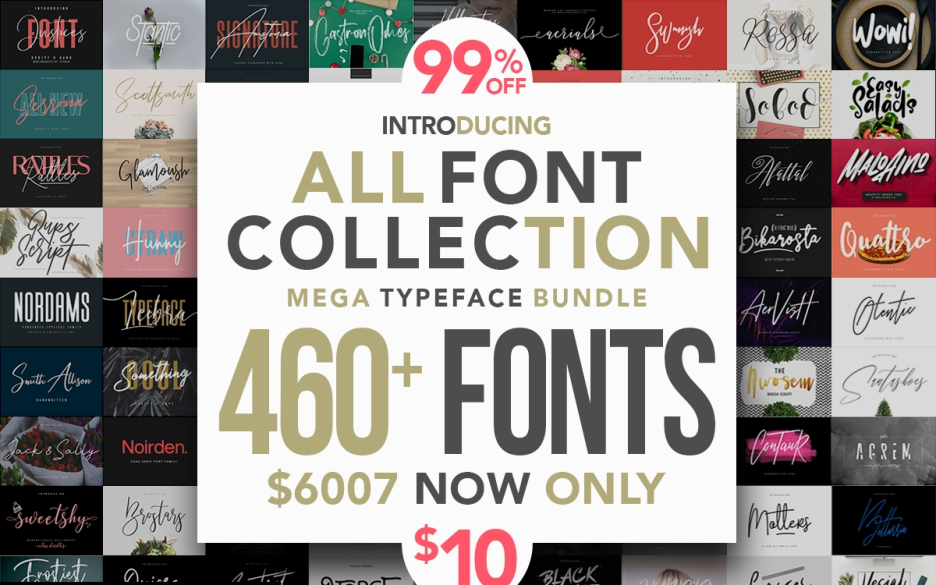
Introducing the All Fonts Collection – Mega Typeface Bundle, a comprehensive selection of high-quality fonts designed to elevate your design projects. This bundle features a diverse range of font styles, including serif, sans-serif, script, and display fonts, each crafted with precision to meet your creative needs.
- Variety of font styles: serif, sans-serif, script, and display
- Multiple weights and styles for versatility
- Over 100 unique fonts
- Comprehensive character sets
- Weights: Light, Regular, Bold, and more